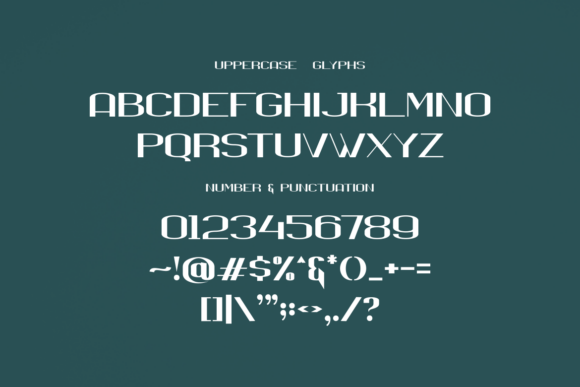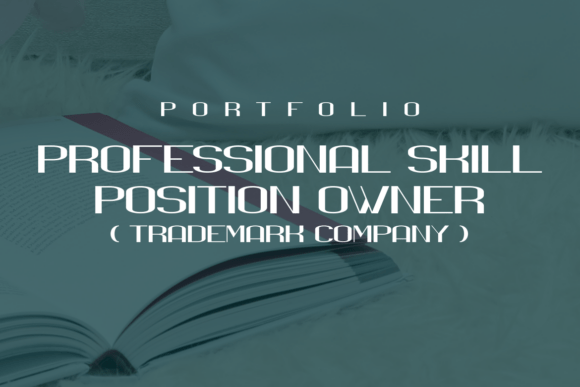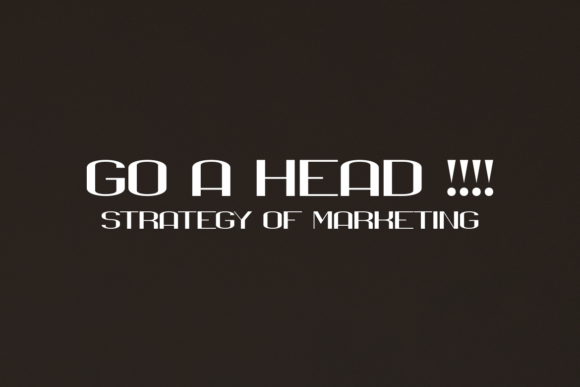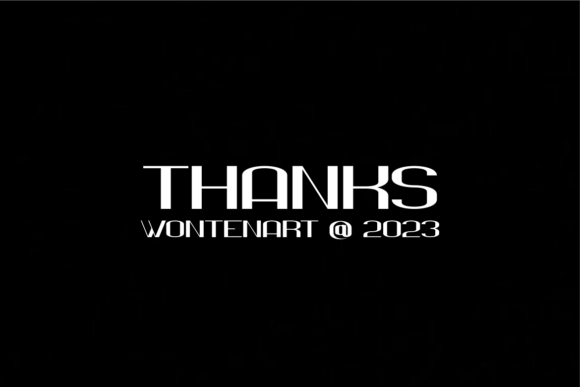
The Futuristic Charm of Ghota Font: A Designer’s Delight
I’ll never forget the struggle I faced while working on a futuristic sci-fi project. My client wanted a font that embodied innovation, technology, and a sleek modern edge. I scoured the internet, tried countless fonts, but nothing seemed to fit the bill. That was until I stumbled upon the Ghota Font duo. It was love at first sight! ✨ The perfect blend of techno aesthetics and refined sans-serif clarity, Ghota Font instantly elevated my design and exceeded my client’s expectations.
- ✨ Unique and Edgy Design: Ghota Font boasts bold geometric forms and clean curves, making it perfect for tech branding, digital posters, and futuristic designs.
- ✅ Versatile Pairing: This font duo pairs well with a variety of typefaces, giving you endless possibilities for creative combinations.
- 💻 Perfect for Digital Projects: Ghota Font shines in UI/UX projects, game designs, and sci-fi themed creations, making it a go-to for digital designers.
While Ghota Font is an excellent choice, there are a few things to keep in mind: ⚠️ Some characters may require manual kerning for optimal spacing, and the font’s bold style can be overwhelming if not used judiciously. 🤔
The Story Behind Ghota Font
While the origins of Ghota Font are shrouded in mystery, it’s easy to imagine a designer with a passion for technology and innovation creating this font duo. Perhaps they were inspired by the sleek lines of futuristic architecture or the glowing screens of digital devices. Whatever the inspiration, Ghota Font is a testament to the power of typography in shaping our digital experiences.
| What makes Ghota Font unique? | Its bold geometric forms, clean curves, and perfect blend of techno aesthetics and refined sans-serif clarity. |
| Is Ghota Font suitable for print projects? | While designed with digital projects in mind, Ghota Font can be used for print projects where a modern, edgy look is desired. |
| Does Ghota Font support OpenType features? | Yes, Ghota Font supports OpenType features, including stylistic alternates and glyphs. |